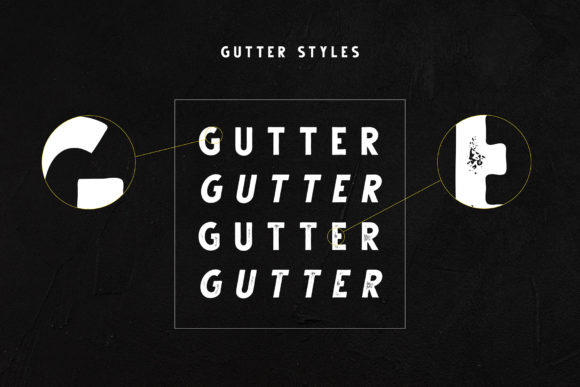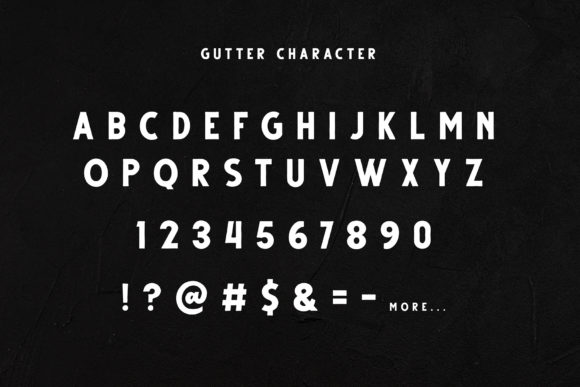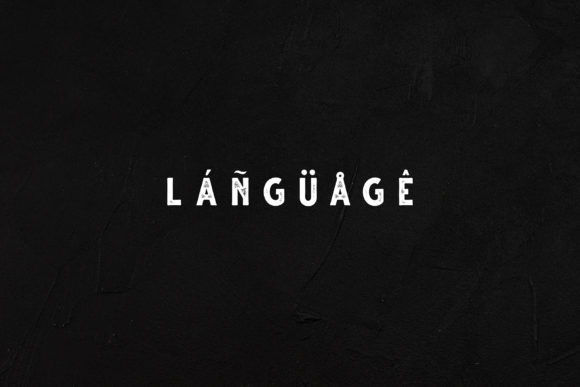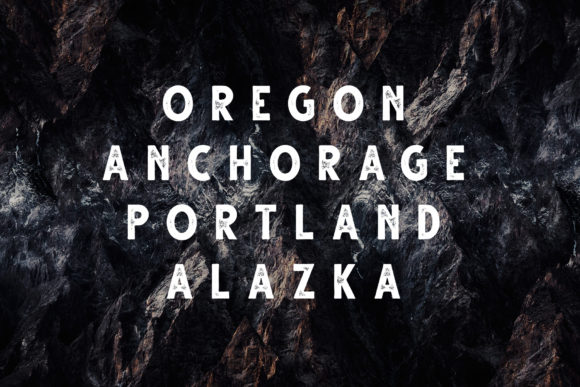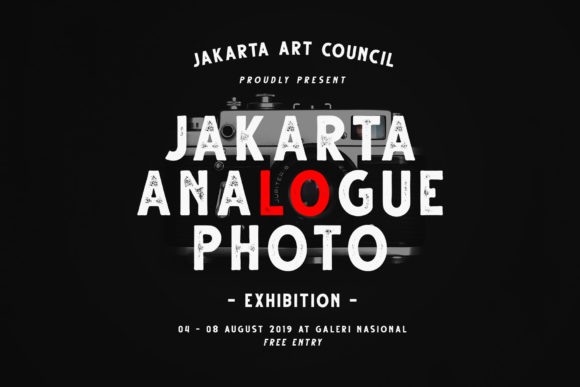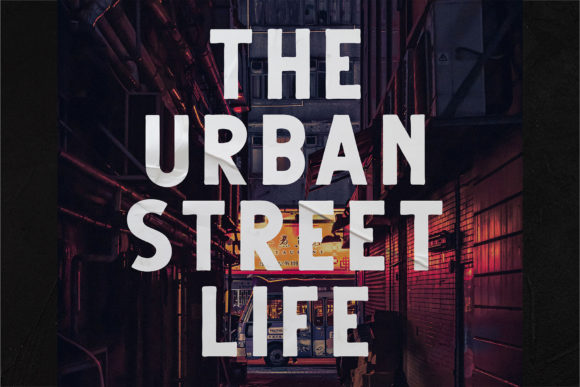
The Perfect Match for Your Next Design Project
Have you ever been working on a design project, pouring your heart and soul into it, only to feel like something is missing? The perfect font can make all the difference. I still remember the moment I stumbled upon Gutter Font – a smart and cool sans serif font with a modern feel that instantly elevated my design game.
Gutter Font is a versatile tool that can add a unique charm to any design project. Its clean lines and modern aesthetic make it perfect for branding, digital products, or even print materials. Whether you’re a seasoned designer or just starting out, Gutter Font is an invaluable addition to your toolkit. With its flexibility and style, it’s no wonder why designers are falling in love with Gutter Font.
Gutter Font Key Features
- Font Family: Gutter Font is a sans-serif typeface designed to be versatile and readable. It comes in multiple weights, from Thin to Black, making it suitable for a wide range of applications.
- Character Set: Supports a wide range of languages, including Latin, Cyrillic, and Greek alphabets, making it a great choice for international designs.
- Unique Characteristics: Gutter Font features a distinctive gutter effect, where the negative space between letters creates a unique visual interest. This effect is particularly noticeable in large font sizes.
Gutter Font Review
As a designer, I’m always on the lookout for unique and effective fonts to elevate my projects. Gutter Font caught my attention with its quirky and modern aesthetic.
- ✨ Versatile: Gutter Font is suitable for a wide range of designs, from logos to web headers.
- ✨ Easy to read: The font’s clean and consistent design makes it easy on the eyes, even at smaller sizes.
- ✨ Customization options: The font comes with a range of weights and styles, allowing for a high degree of customization.
- ⚠️ Limited language support: Gutter Font may not be suitable for projects requiring extensive language support.
- ⚠️ Not ideal for small text: While the font is easy to read, it may not be the best choice for small text or body copy.
Gutter Font is a solid addition to any designer’s toolkit. While it may not be perfect for every project, its versatility and customization options make it a great choice for those looking for a modern and quirky font. With a little creative problem-solving, Gutter Font can be a valuable asset for any design project.
Gutter Font is ideal for:
- Typography-heavy designs, such as posters and brochures.
- Creating a retro or vintage aesthetic.
- Adding a unique touch to digital products, such as e-books and presentations.
Tips for Getting the Most Out of Gutter Font
To get the most out of Gutter Font, try:
- Pairing it with a bold, contrasting color to create visual interest.
- Using it in combination with other fonts to create a unique typographic hierarchy.
- Colorful background patterns to add visual interest.
- Photography or illustrations to add a personal touch.
- Handwritten notes or quotes to create a sense of intimacy.
- Background images or textures to add depth and context.
- Animated elements or transitions to create a dynamic feel.
- White space and negative space to create a clean and modern aesthetic.
- Images or illustrations that relate to the book’s
Gutter Font FAQs
What is Gutter Font, and how does it differ from other fonts?
Gutter Font is a custom font designed specifically for use in digital products, particularly in UI components like buttons, menus, and form labels. Unlike traditional fonts, Gutter Font is optimized for readability at small sizes and in low-contrast environments. Its unique design features include a larger x-height, increased letter spacing, and a tailored character set for improved legibility.
To use Gutter Font in this project, set the font family to ‘Gutter’ and experiment with different font sizes, weights, and colors to create visual interest.
Combine Gutter Font with other design elements such as:
Project 3: Gutter Book Cover Design
Create a book cover design that incorporates Gutter Font in a creative and eye-catching way.
To use Gutter Font in this project, set the font family to ‘Gutter’ and experiment with different font sizes, weights, and colors to create visual interest.
Combine Gutter Font with other design elements such as: